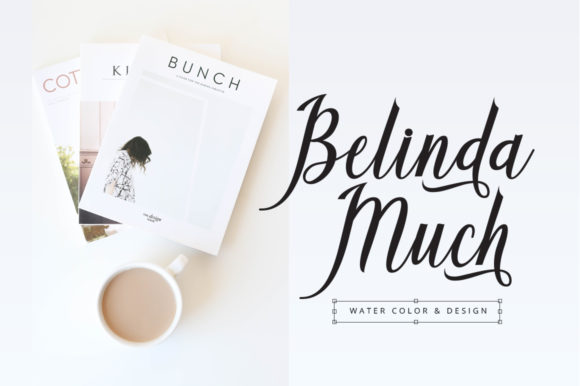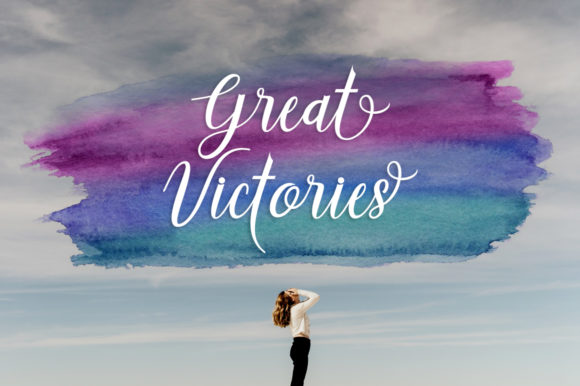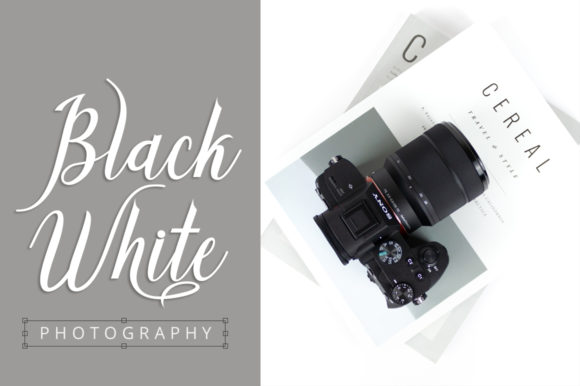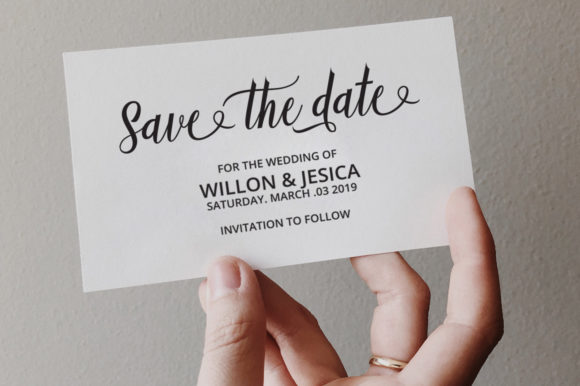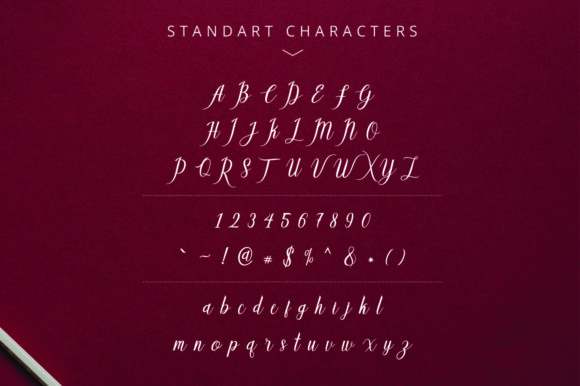
Callisa Script
About Callisa Script Font
Callisa is a strikingly beautiful and lovely handwritten font with a cute twist. It will surely turn any design project into a romantic piece of art. Add this lovely freebie to your creations and take your designs to the next level!